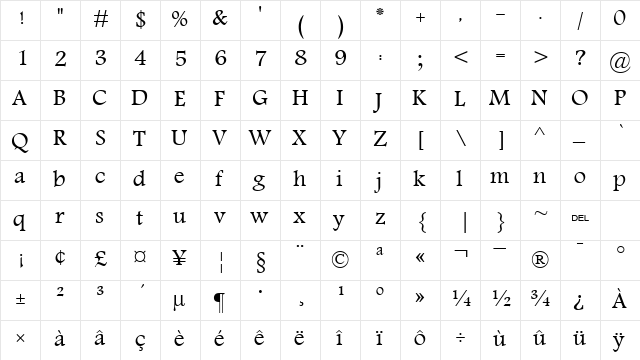
onaizah-ayman Regular Font Preview
onaizah-ayman Regular
Design Context for onaizah-ayman Typeface
onaizah-ayman is a composed and adaptable typeface that performs quietly and consistently across a wide range of design contexts.
Pro Tip: Use onaizah-ayman in both headline and body roles to test its range before committing to a single application.